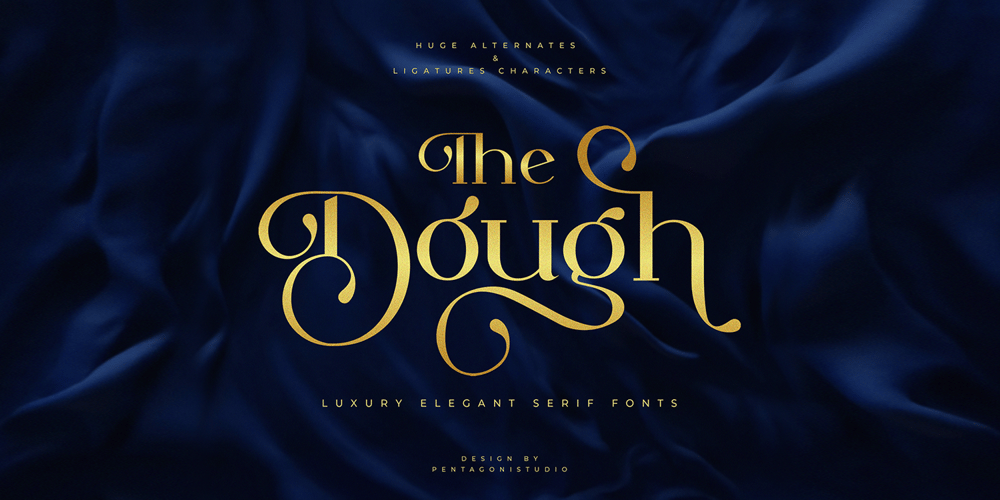
The Dough Font Family was designed by Burhan Adiatma and published by pentagonistudio. The Dough contains 1 styles and family package options. The Dough Is An Luxury Stylish Serif Font Inspired By Expensive Serif Typeface.SOFTWARE REQUIREMENTS :Fonts and alternate : No special software required they may be used in any basic program /website apps that allows standard fonts That’s it folks! You can go ahead and get cracking :)Follow My Shop For Upcoming Updates Including Additional Glyphs And Language Support. And Please Message Me If You Want Your Language Included or If There Are Any Features or Glyph Requests, Feel Free to Send me A Message. Have a Good Day !